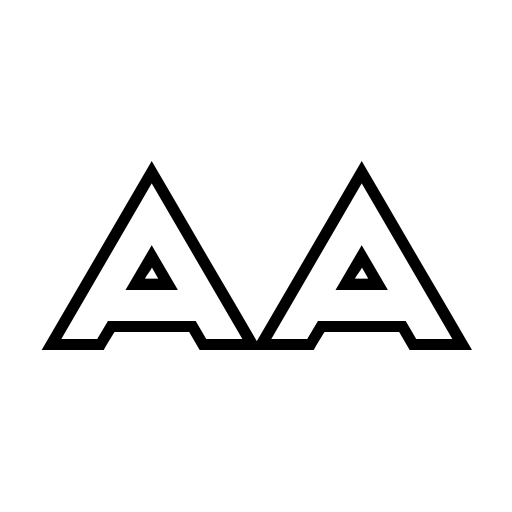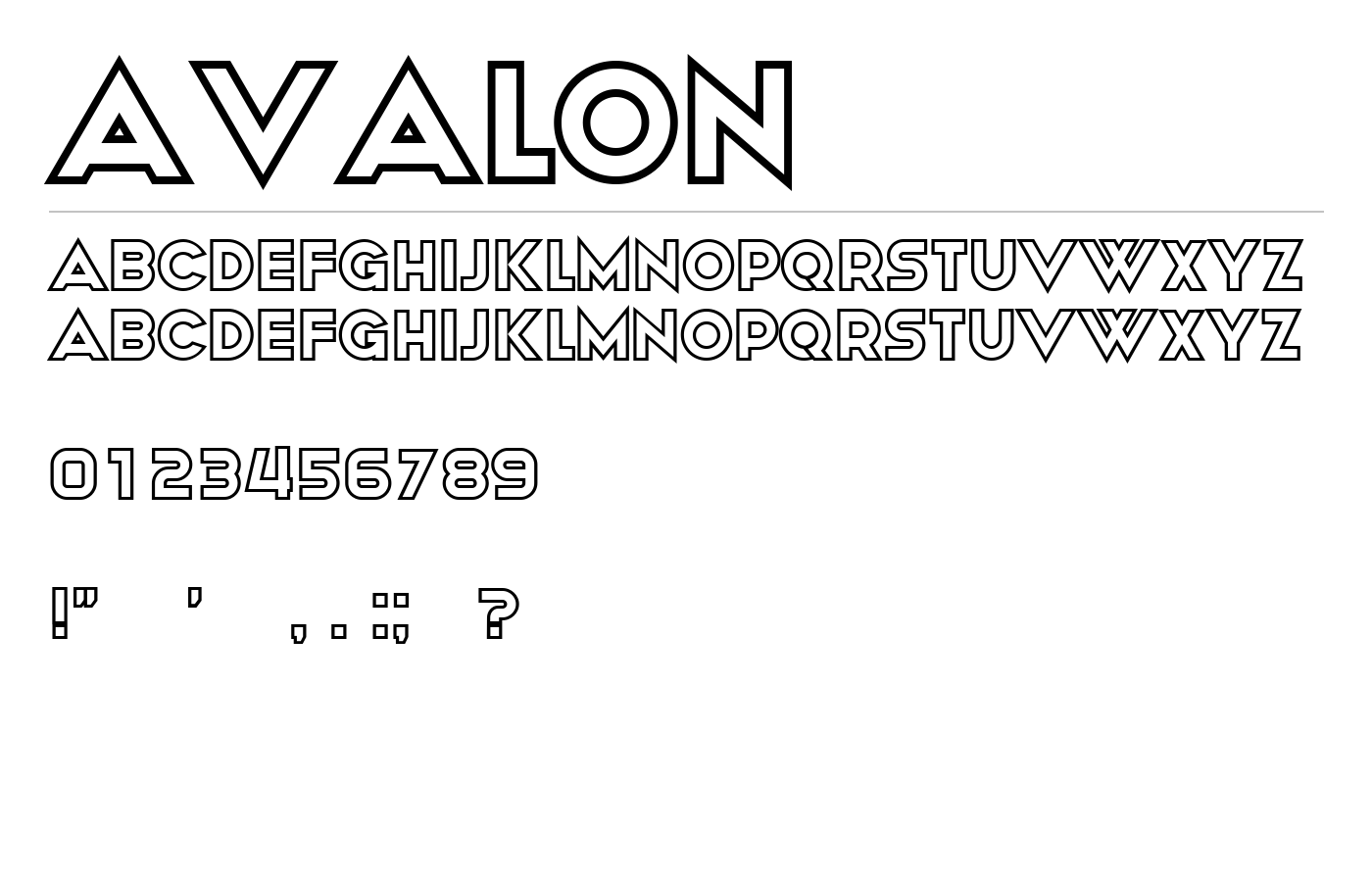
Avalon is a bold, geometric sans serif font characterized by its strong angular shapes and clean outline style, creating a modern and energetic look. Its uppercase-only design with distinctive cutouts and sharp corners makes it ideal for impactful headlines, logos, and branding that require a futuristic and dynamic feel. This font works best in display settings where its unique structure can stand out and add a contemporary edge.
Avalon Font
About Avalon Font
| Font family | Avalon Font |